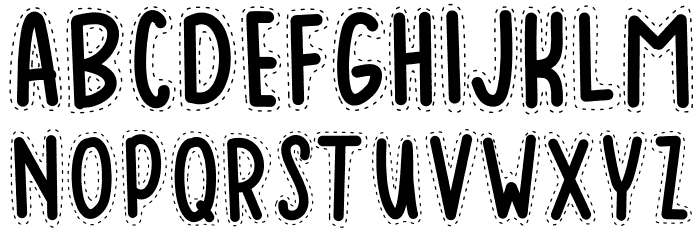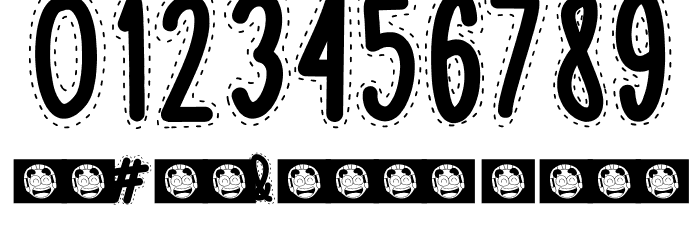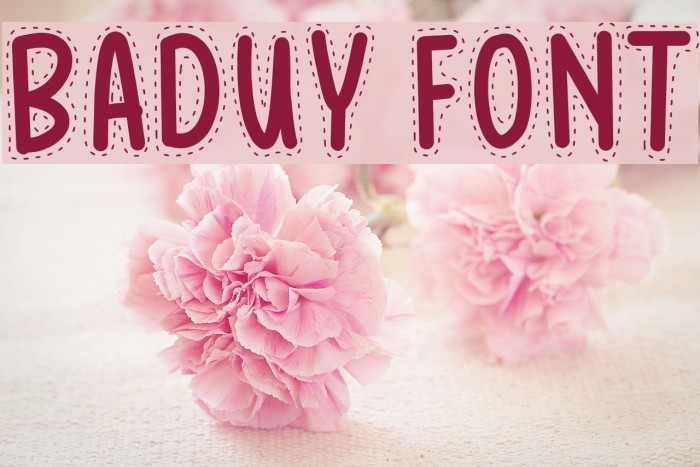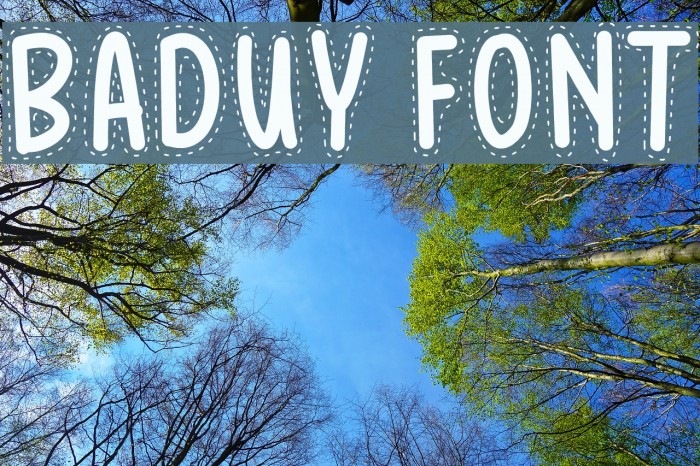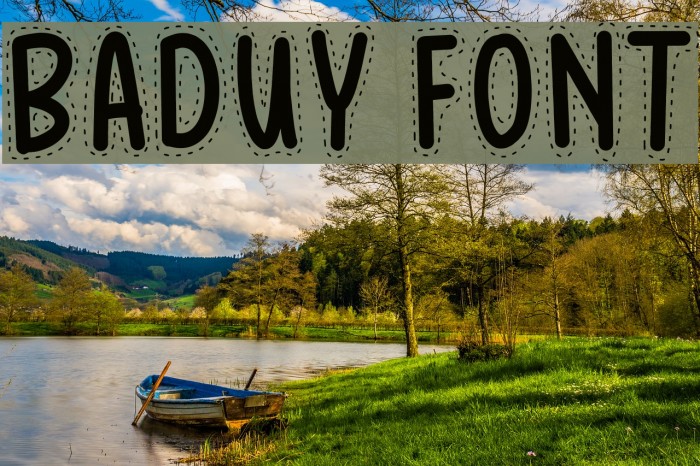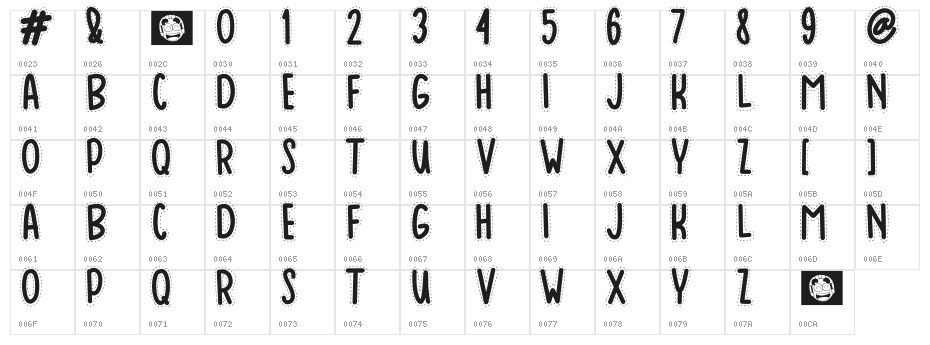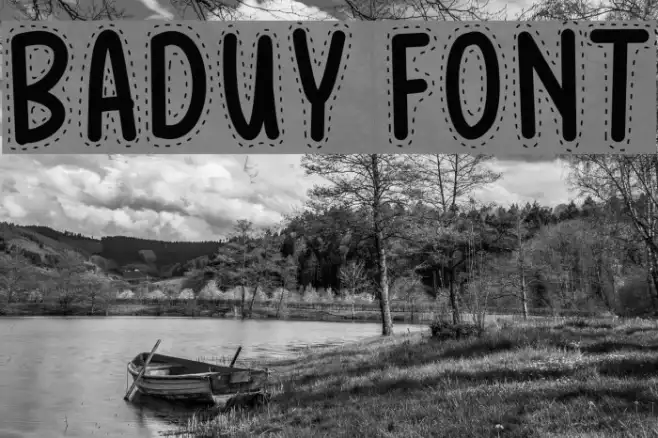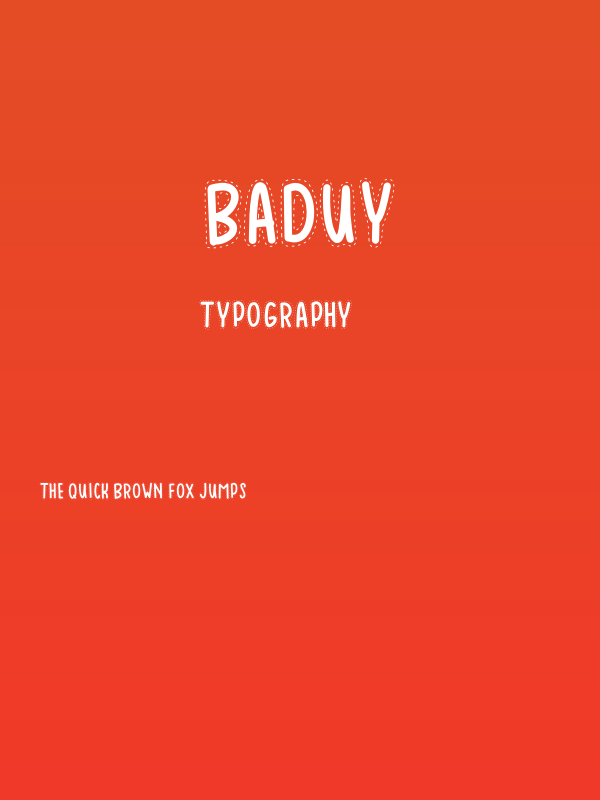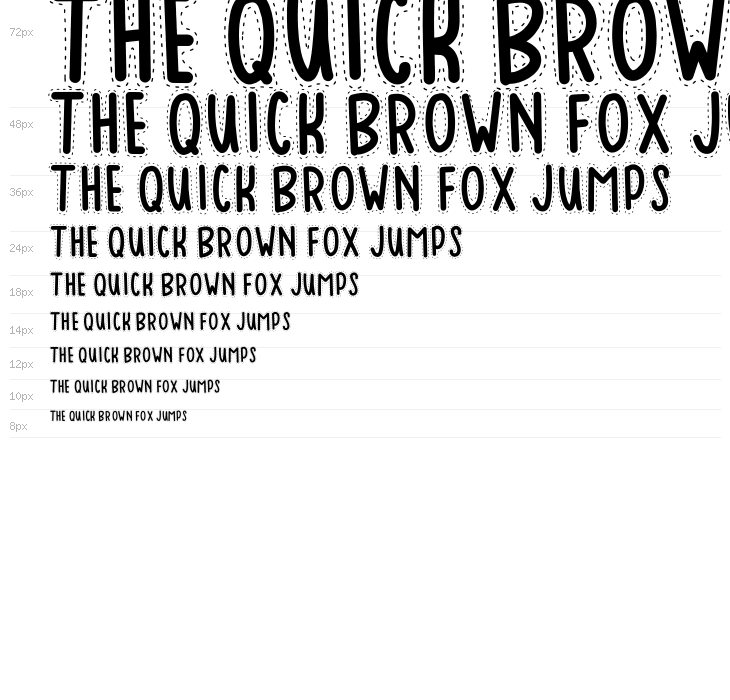
BADUY Font
This playful and bold font features a hand-drawn style with a unique dotted outline around each character, giving it a whimsical and energetic appearance. The uppercase and lowercase letters maintain a consistent height, with slightly irregular strokes that add to its charm. The numerals are equally bold and maintain the same playful style, making them stand out. Special characters are included, each with the same dotted outline, ensuring a cohesive look throughout. This font's distinctive style makes it ideal for projects that require a fun and lively touch.
A playful, bold font with a hand-drawn style and dotted outlines.
- Proposed Projects: Ideal for children's books, playful branding, posters, and creative invitations.